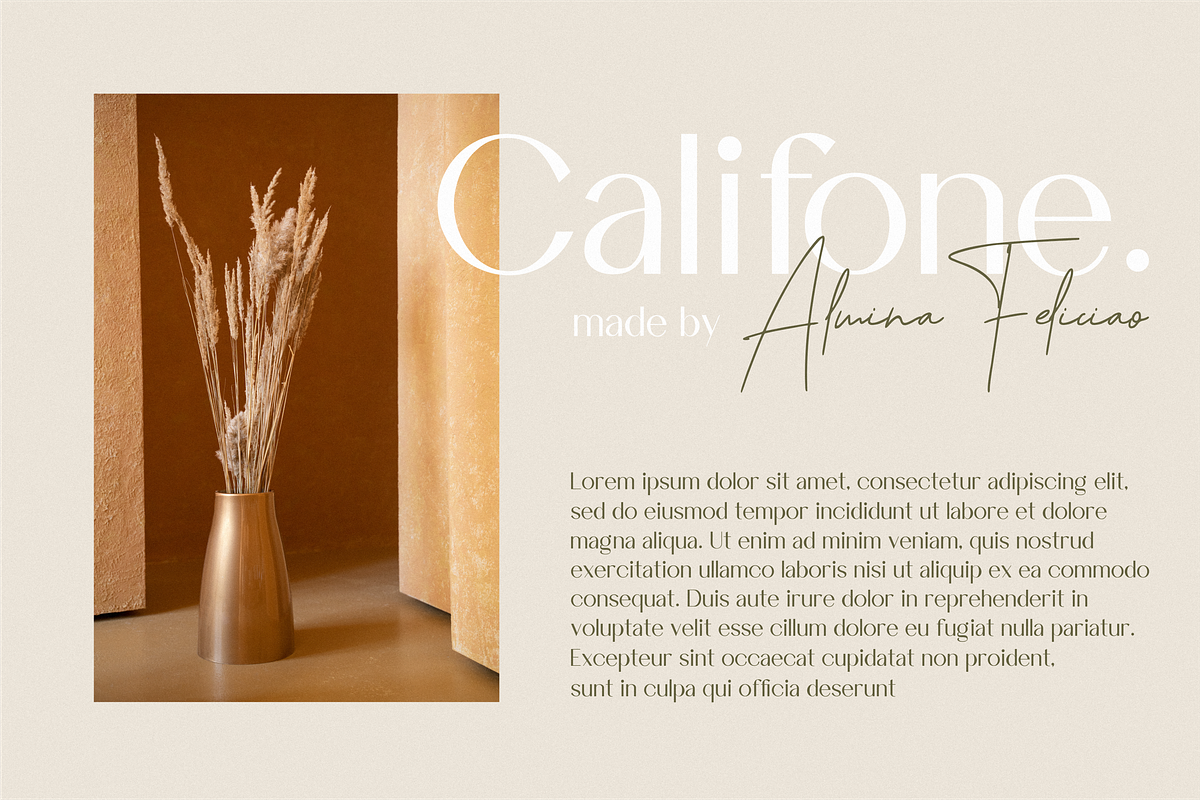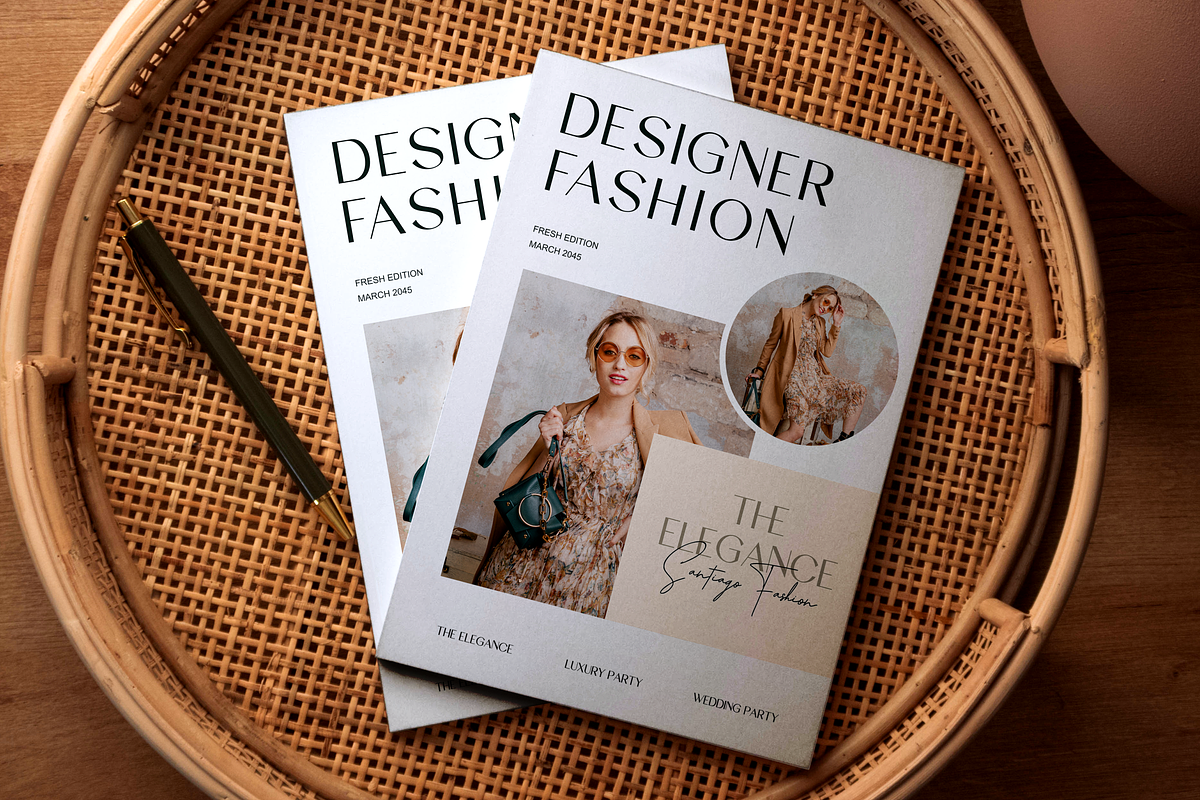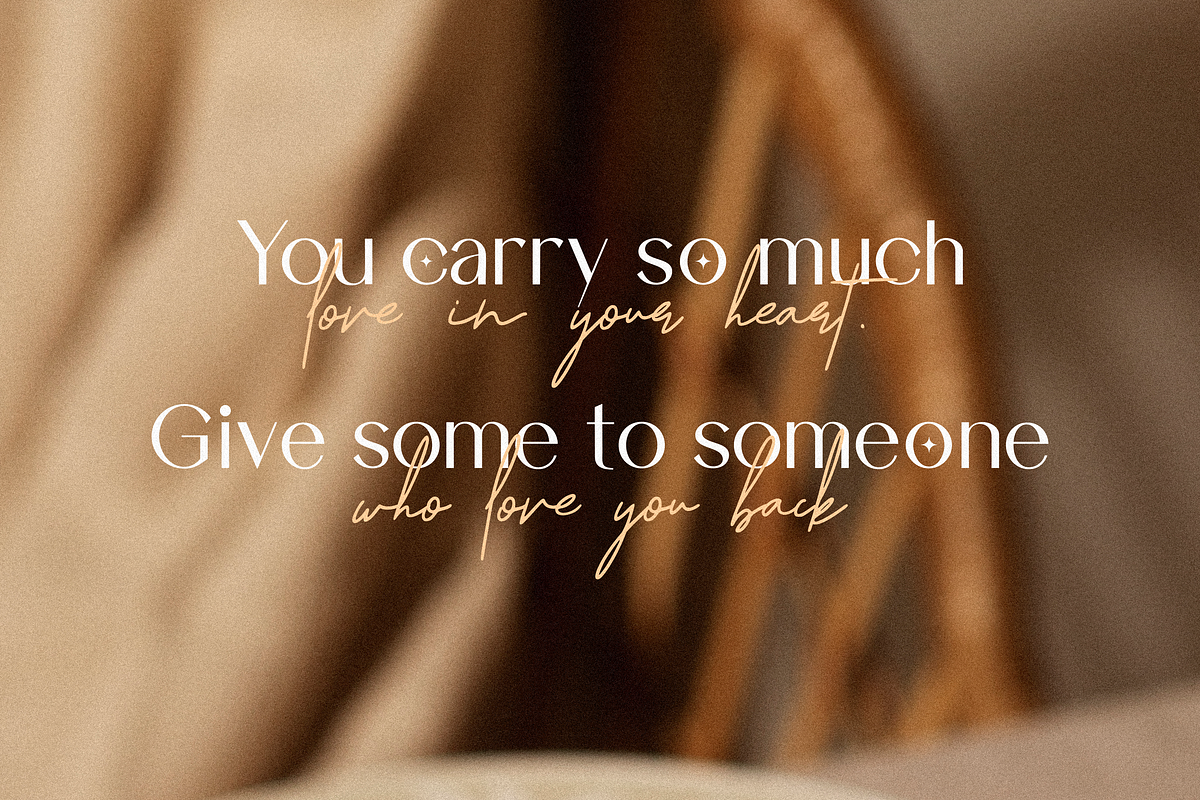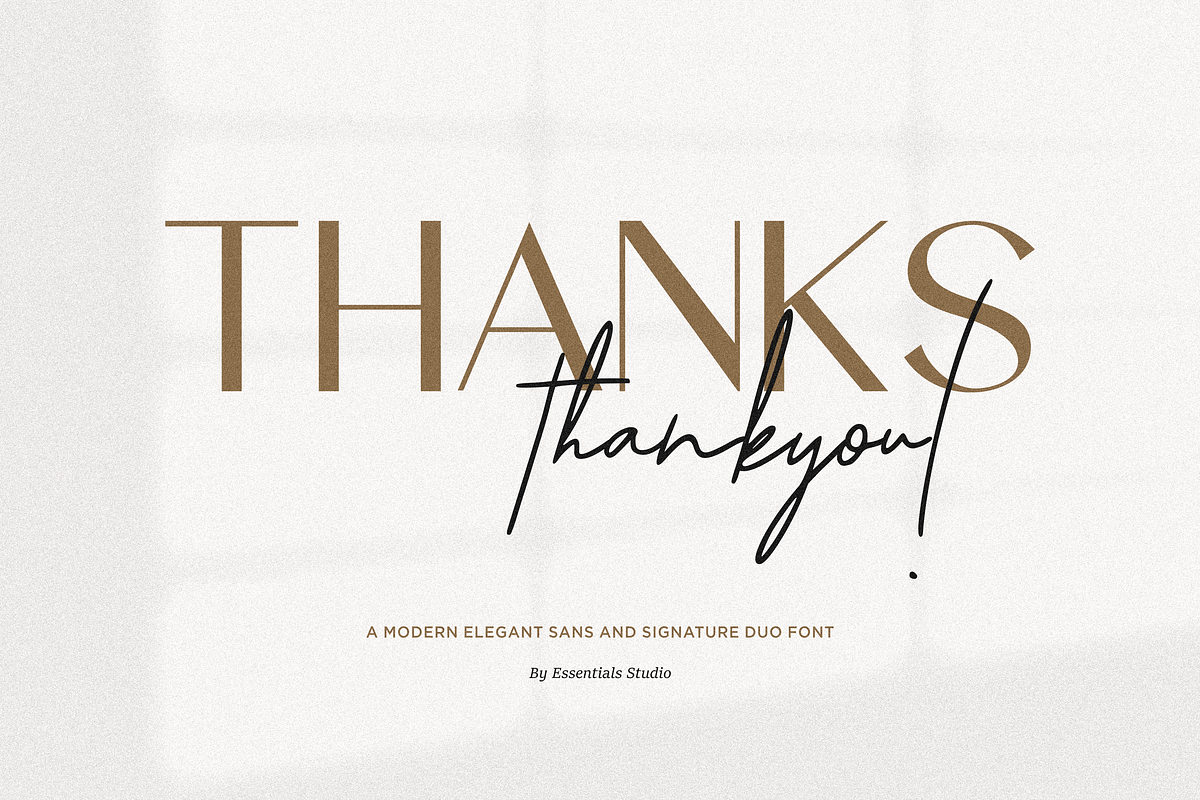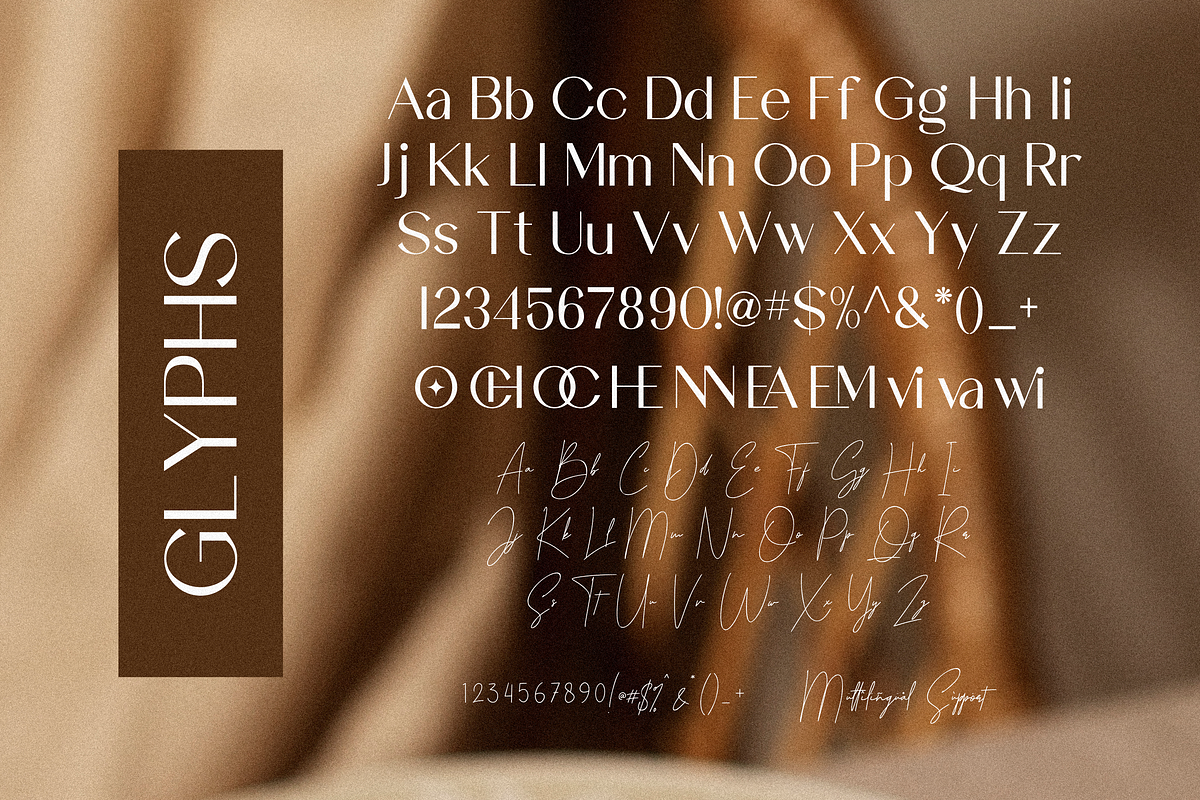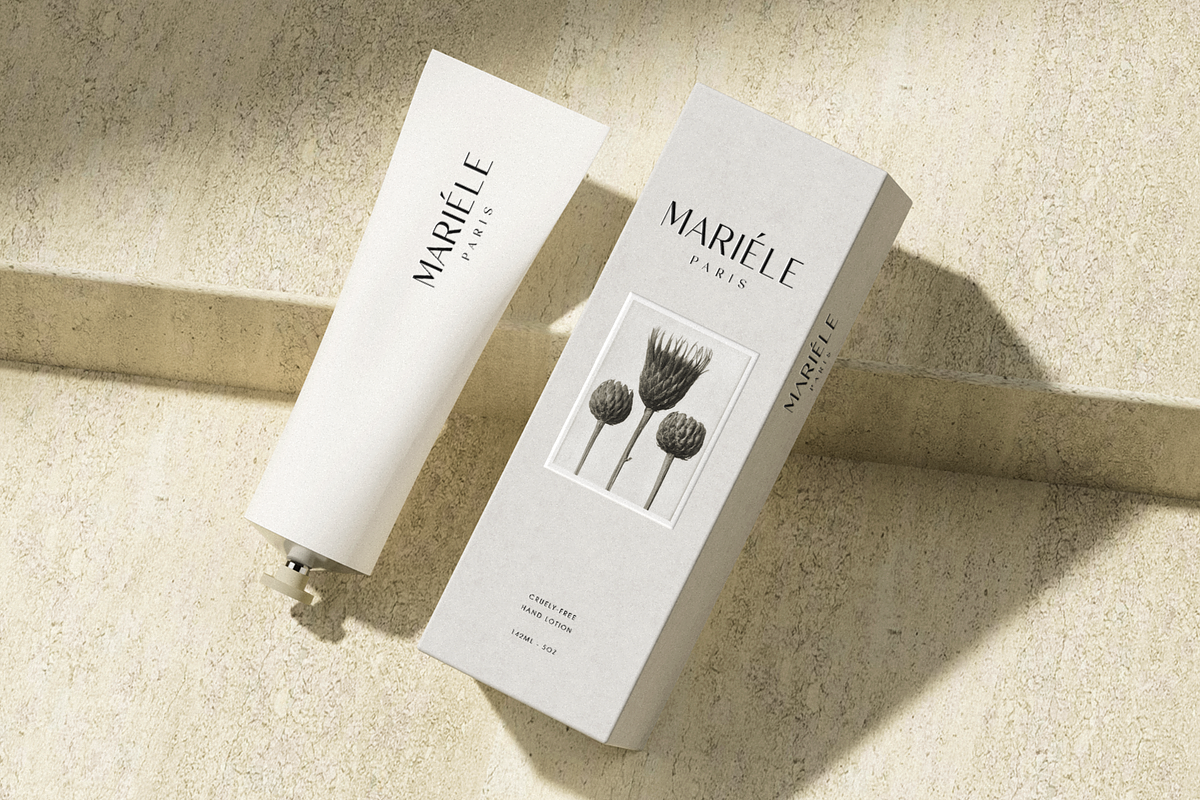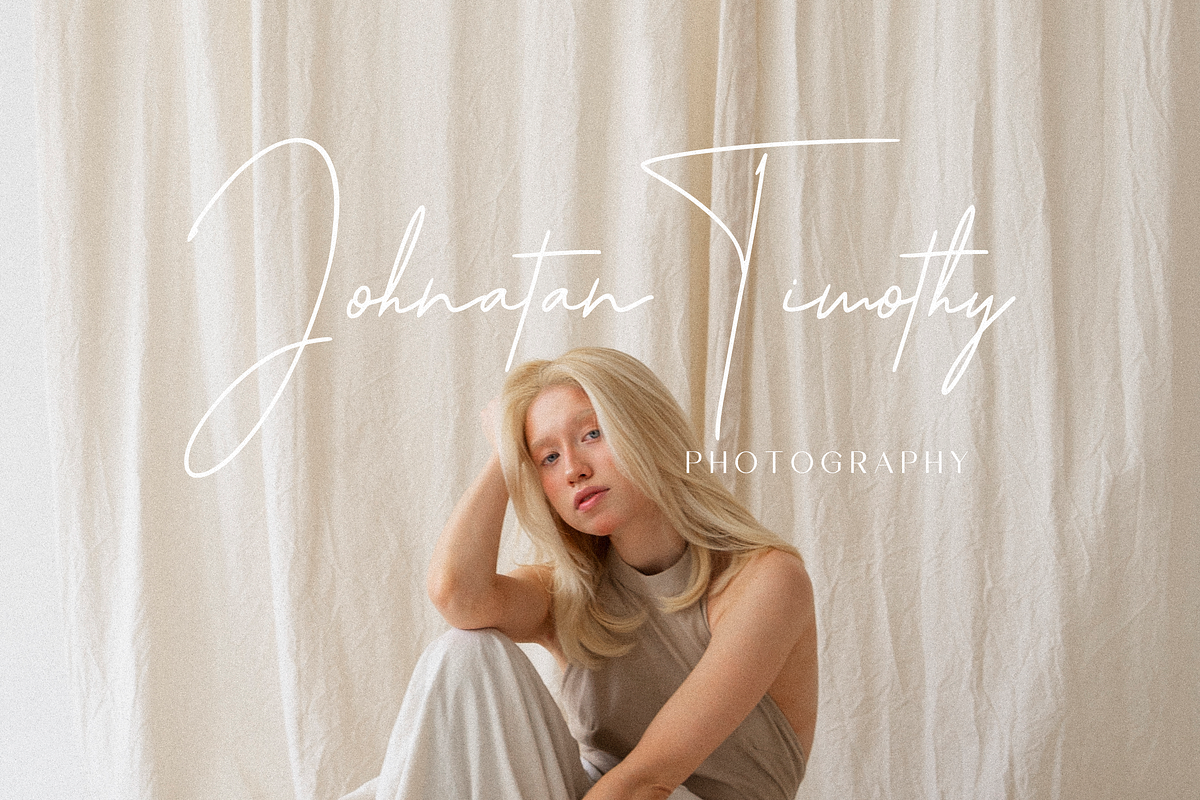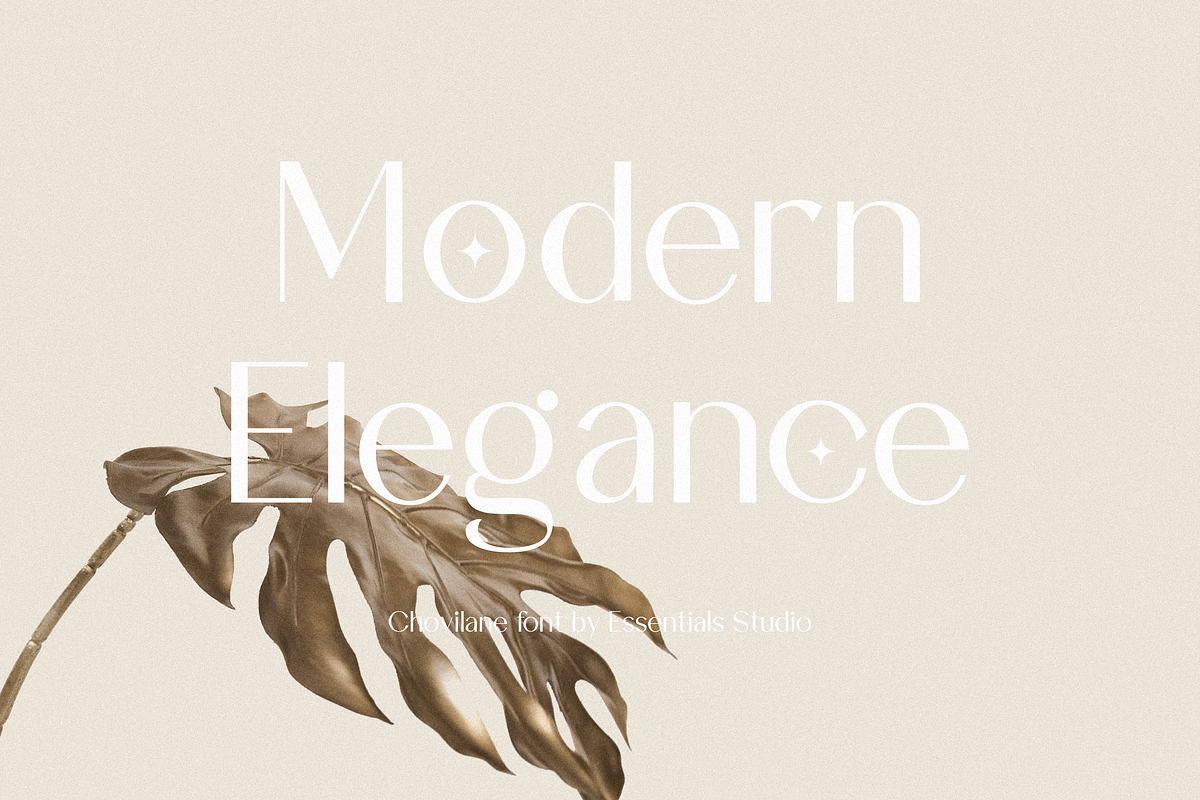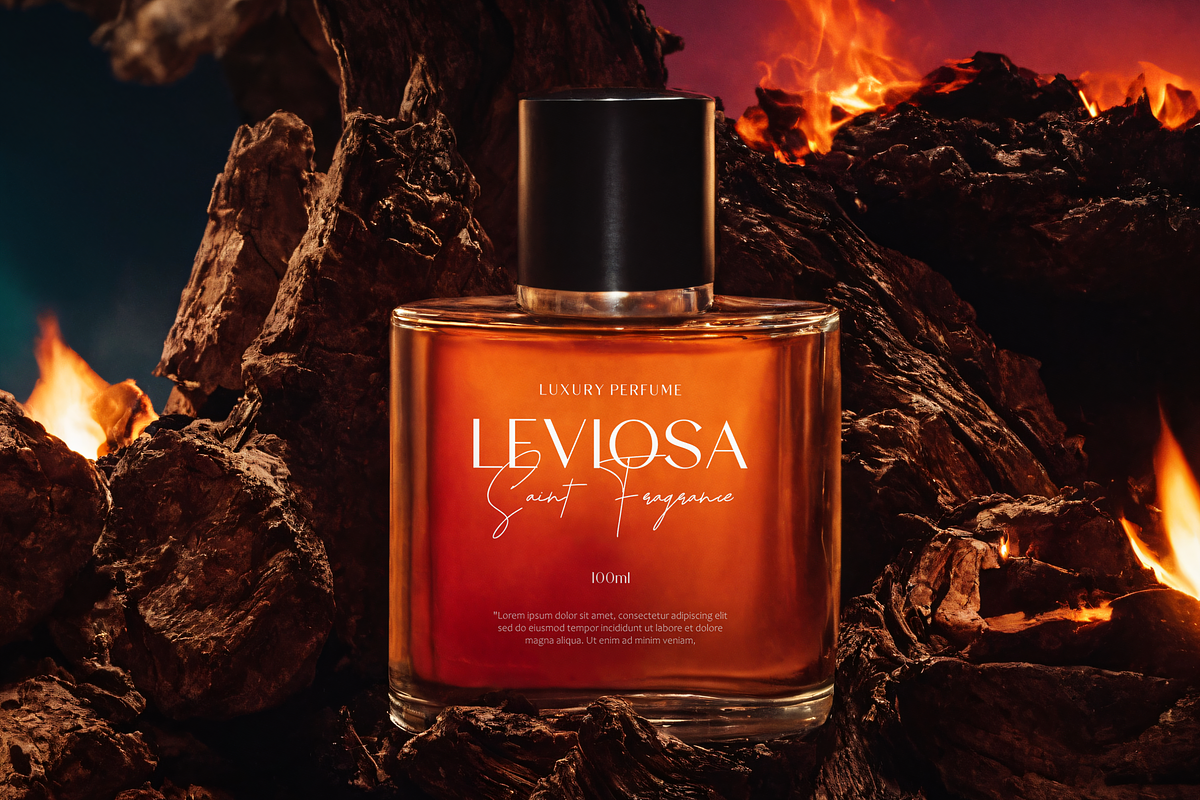
Chovilane Signature Austine Duo Font
Unleash the elegance of textual design with the Chovilane Signature Austine, a remarkable duo font incorporating the best of Sans and signature styles. Beautifully crafted by the skilled hands of Essentials Studio, this font is versatile enough to add poise to your wedding invitations, inject charisma into your products or branding initiatives, or elevate your social media posts to artistry. Exquisitely embodied in magazine spreads and product packaging, this font also effortlessly stands alone, accentuating words arranged over backgrounds. The Chovilane Signature Austine - the ultimate blend of style and sophistication for every designer's Supply.